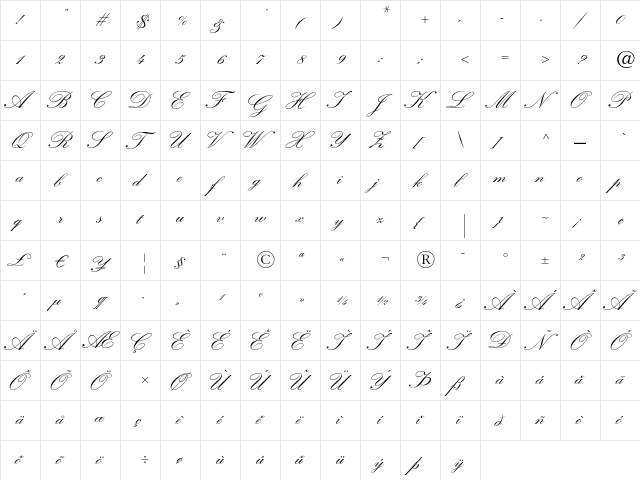
Kuenstler Script LT Bold
Design Context for Kuenstler Script LT Typeface
Kuenstler Script LT brings a calligraphic fluidity to the page — its connecting strokes and expressive curves give it an unmistakably human quality. The heavy weight commands attention and anchors typographic hierarchies.